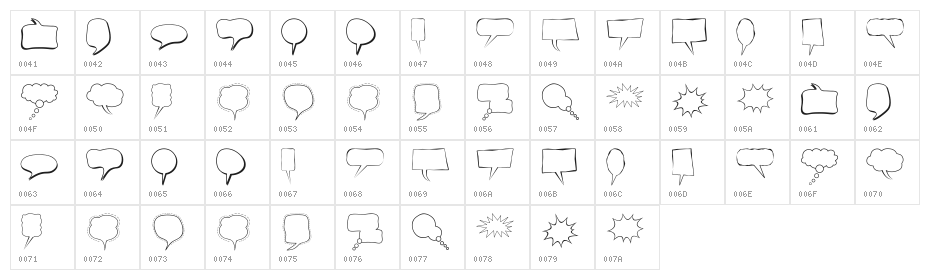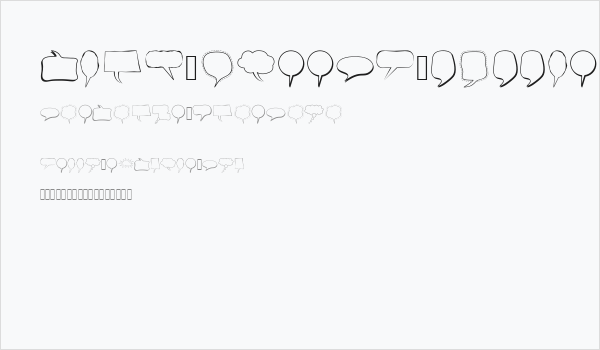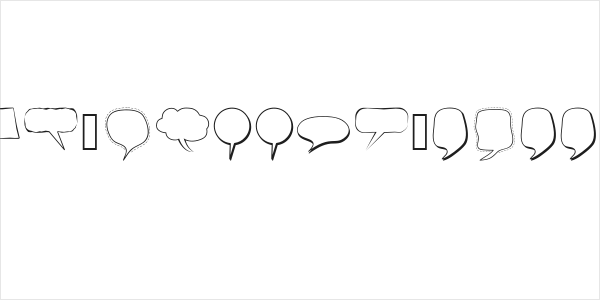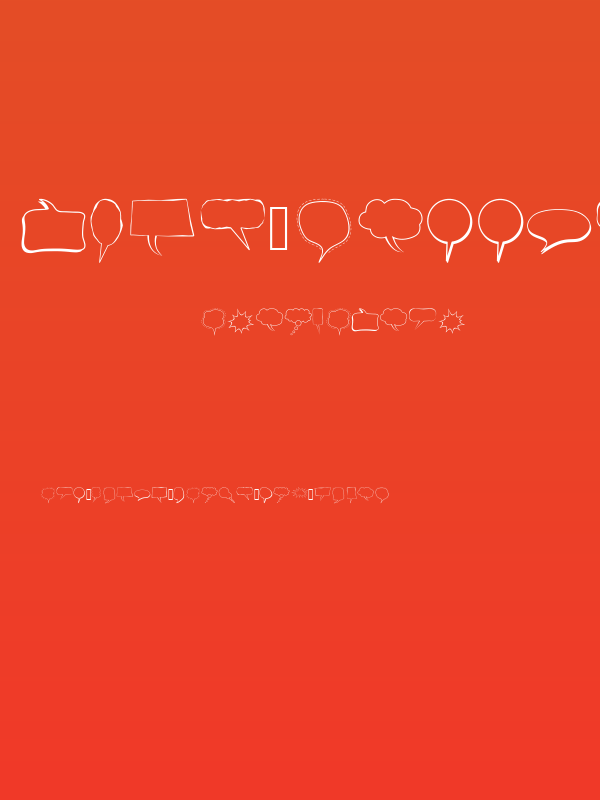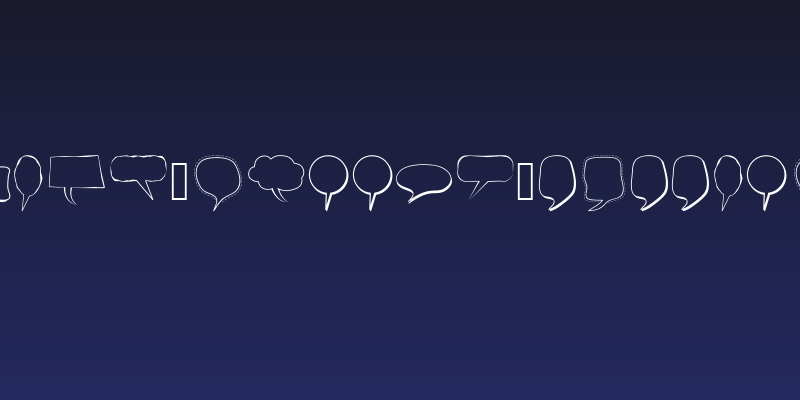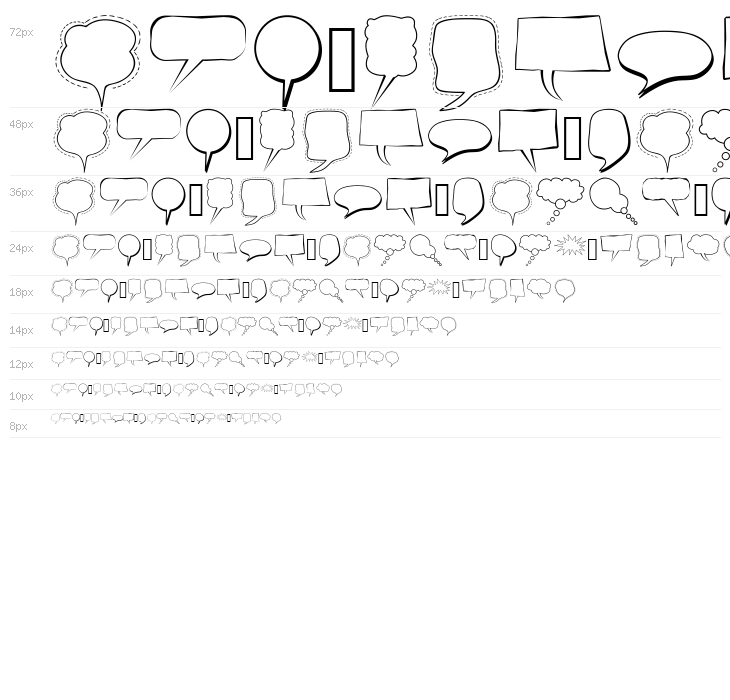
Alin Speech Bubbles Font
Alin Speech Bubbles Description
| Overall Style | Decorative, Playful, Comic |
| Use Case | Decorative elements, Comic dialogue, Visual storytelling, Emphasis in designs. |
| Proposed Projects | Comic books, graphic novels, children's books, playful posters, educational materials, social media graphics. |